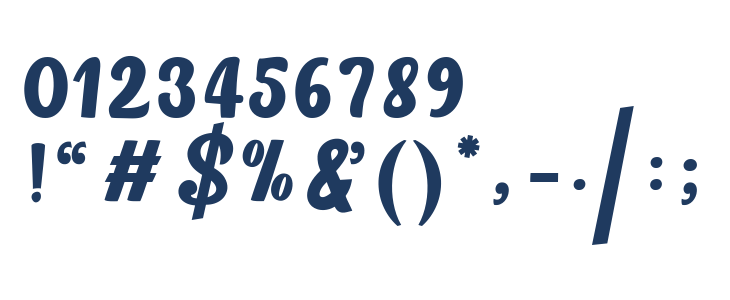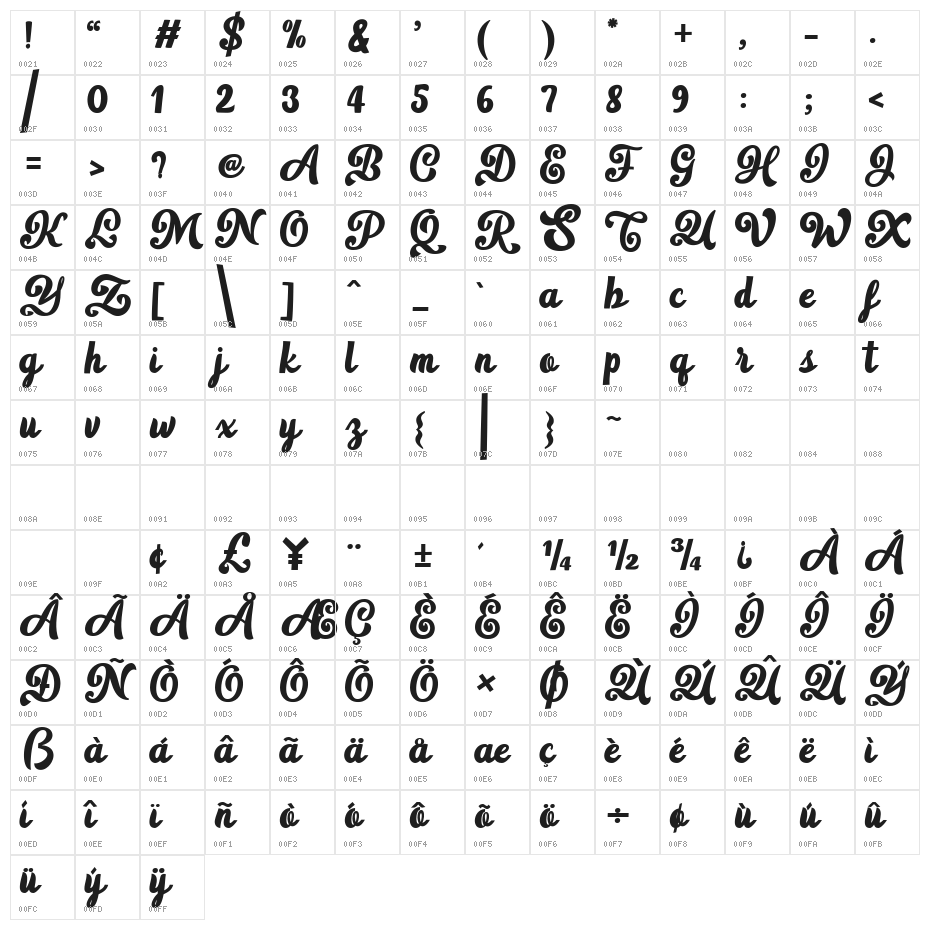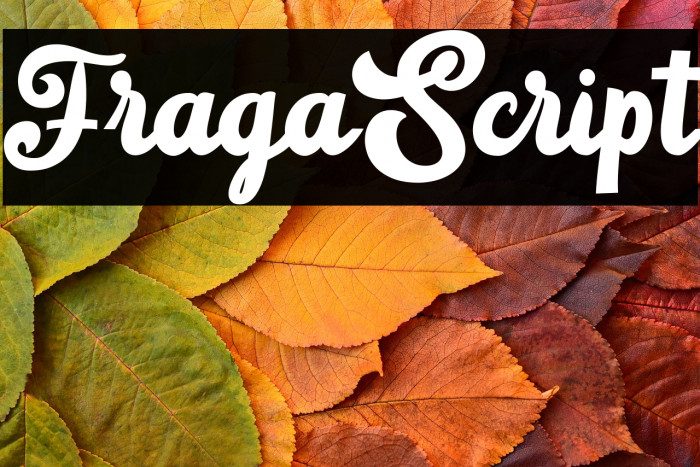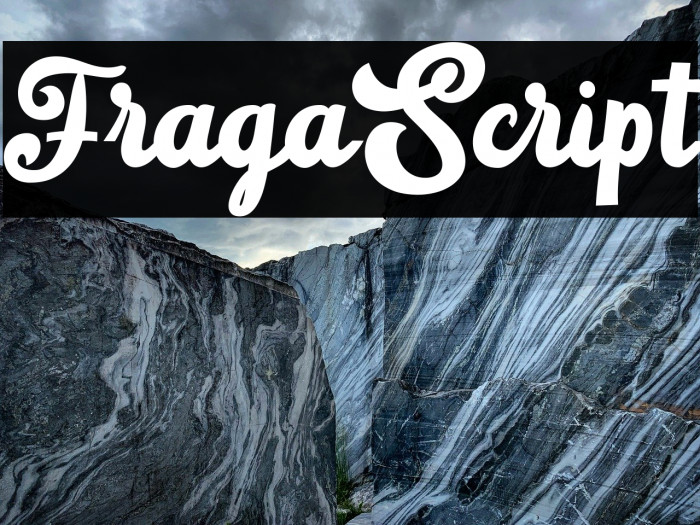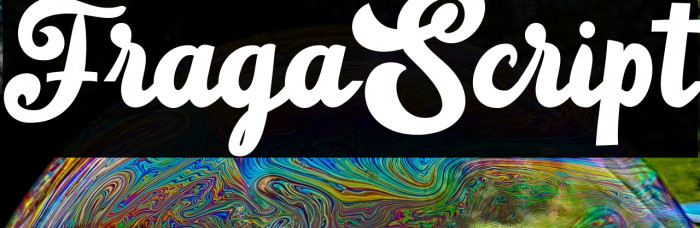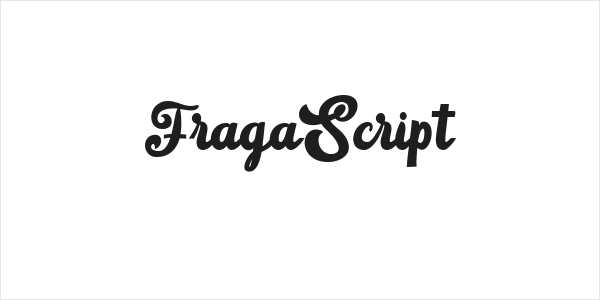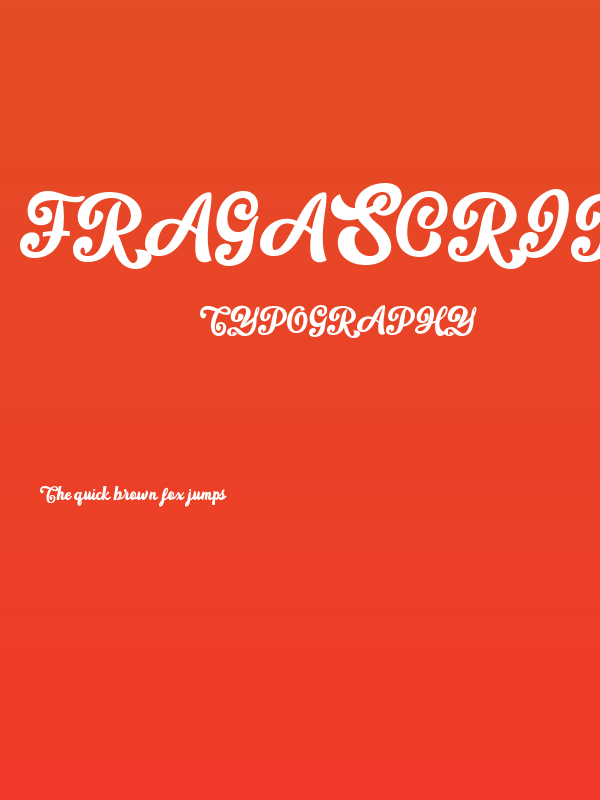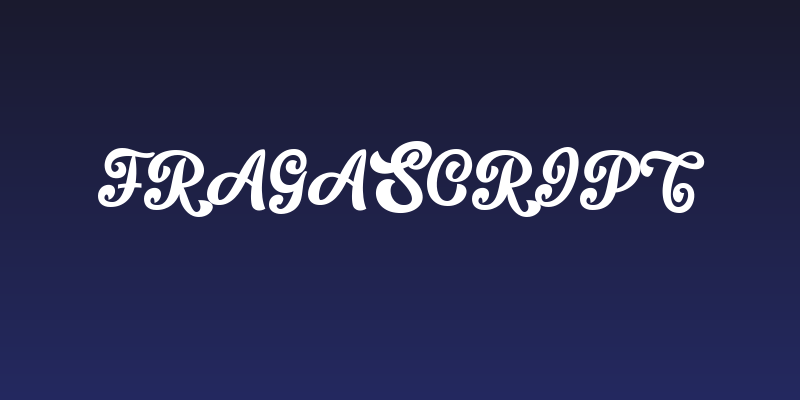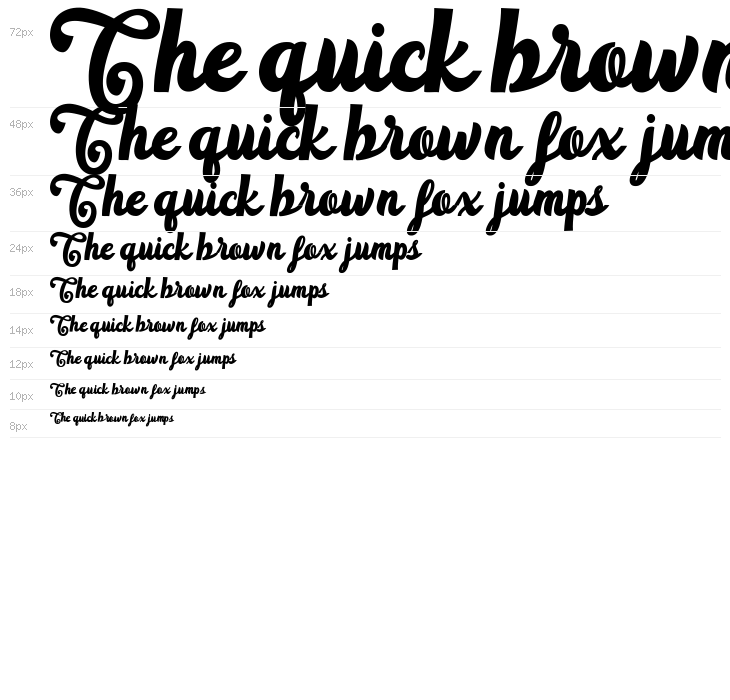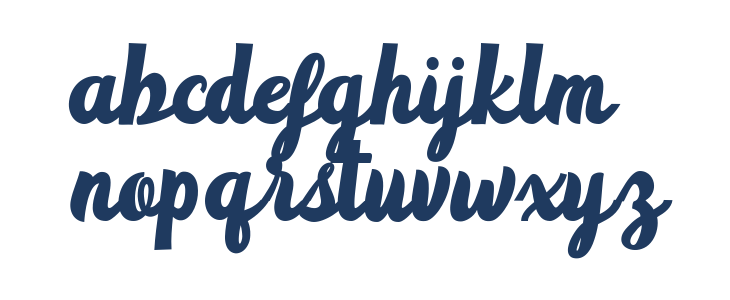
FragaScript Font
FragaScript Description
This font features a bold and flowing script style, characterized by its elegant and cursive letterforms. The uppercase letters exhibit a decorative flair with swashes and loops, while the lowercase letters maintain a smooth and connected appearance. The numerals are bold and rounded, complementing the overall script style. Special characters are designed with similar attention to detail, ensuring consistency across all glyphs. The font's bold weight and high contrast between thick and thin strokes make it highly legible and visually appealing, suitable for various creative applications.
| Use Case | Logos, Headlines, Invitations |
| Proposed Projects | Ideal for wedding invitations, greeting cards, branding, and logo design where a touch of elegance is desired. |